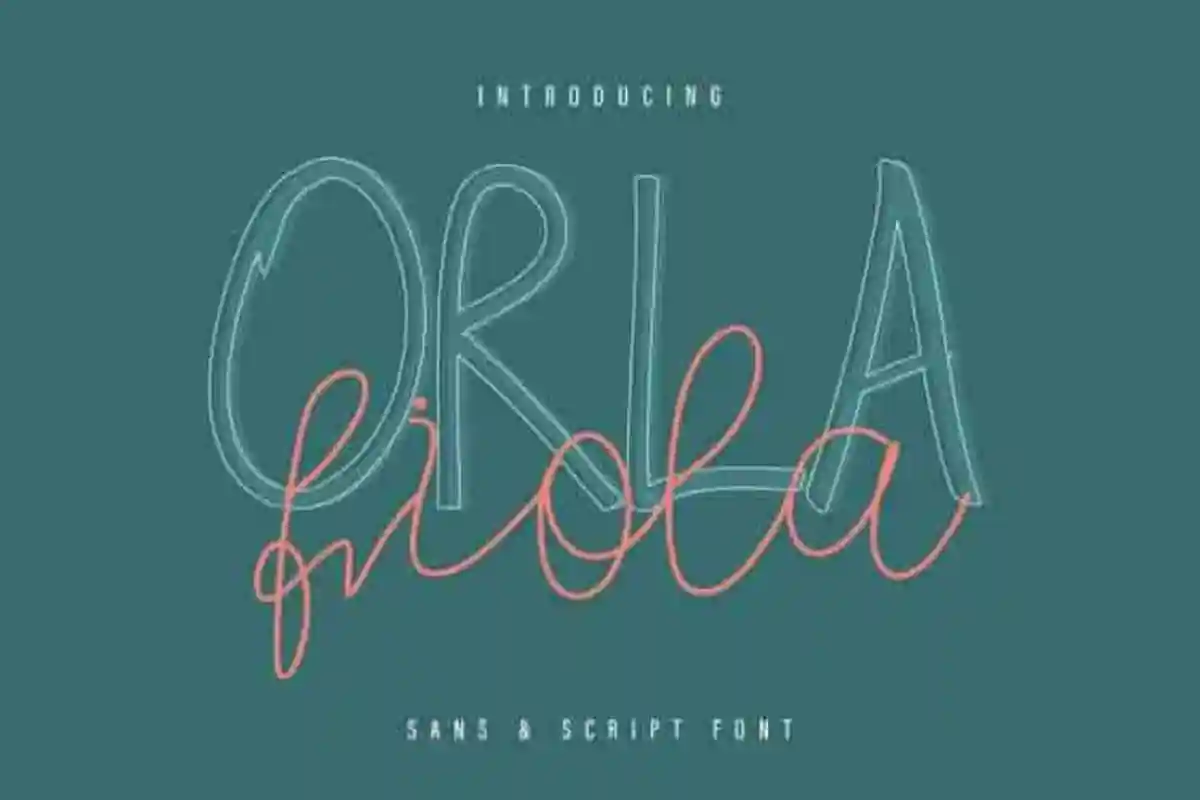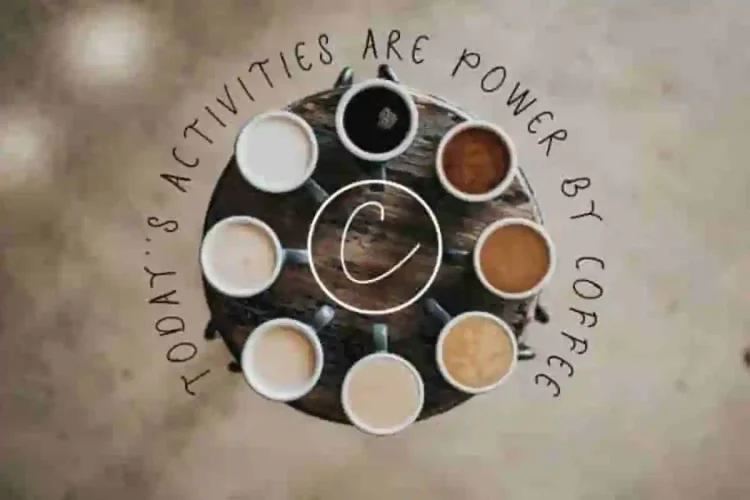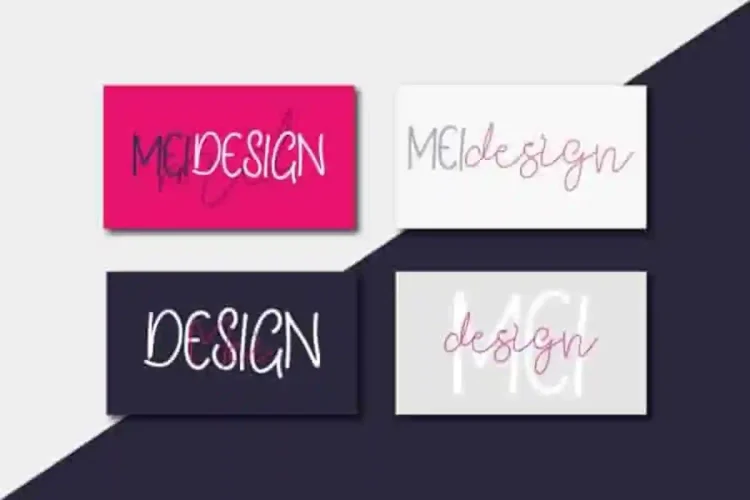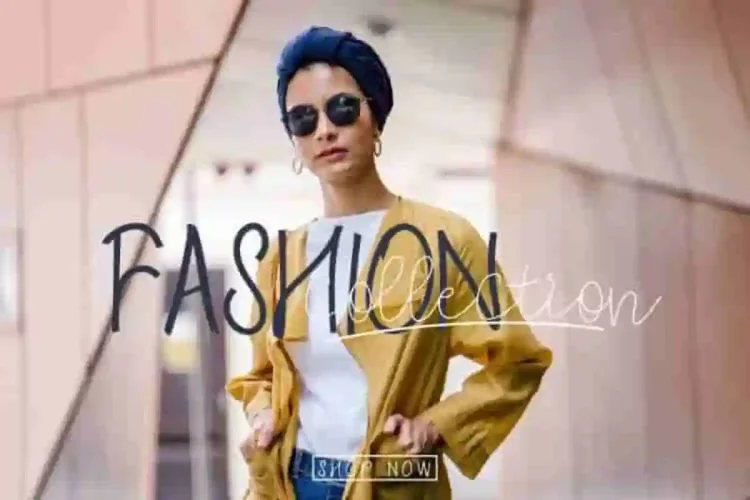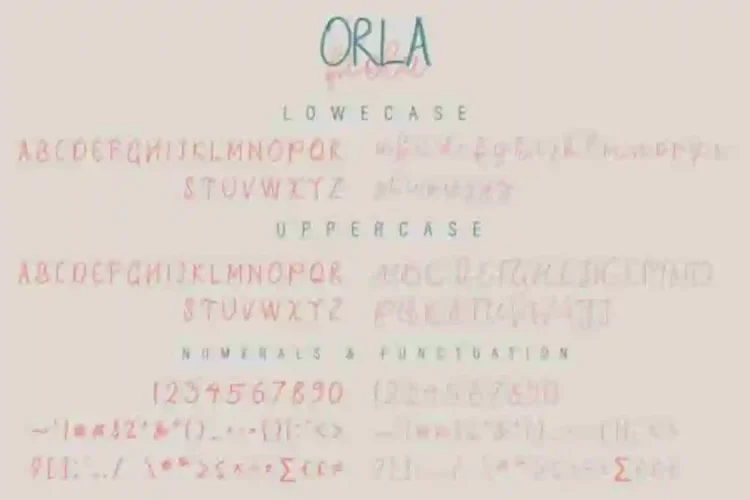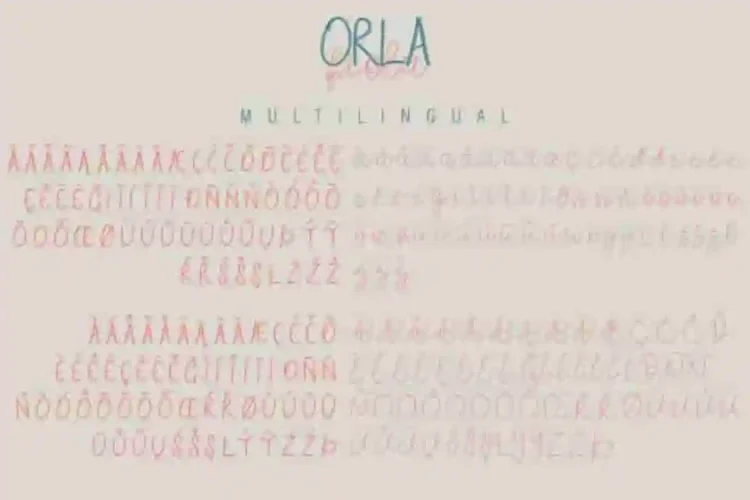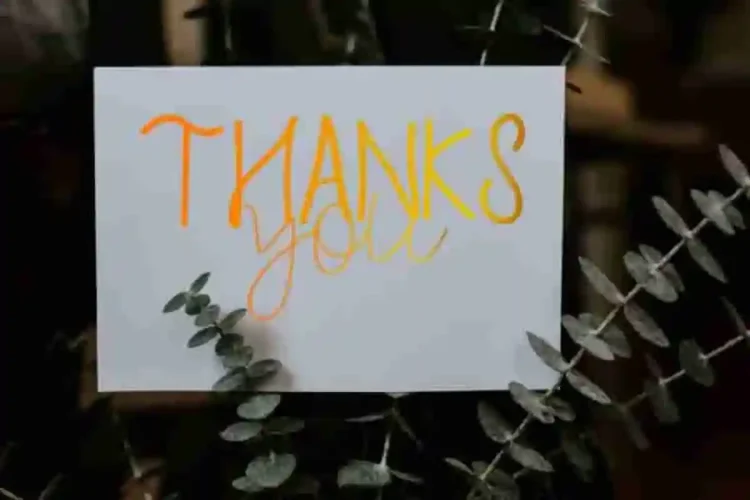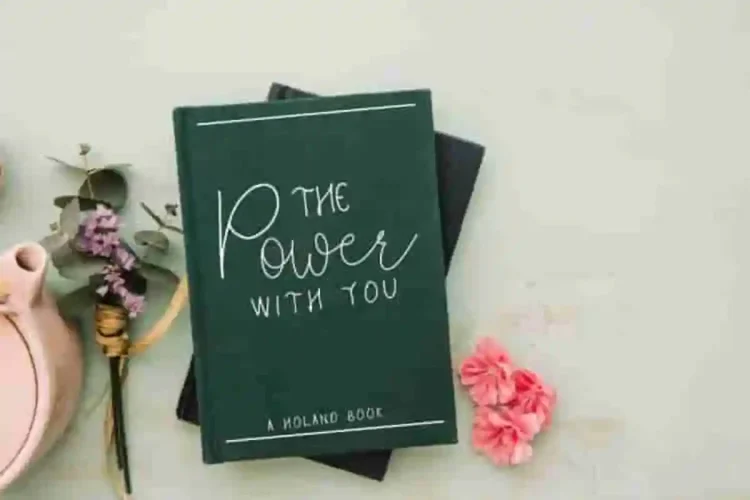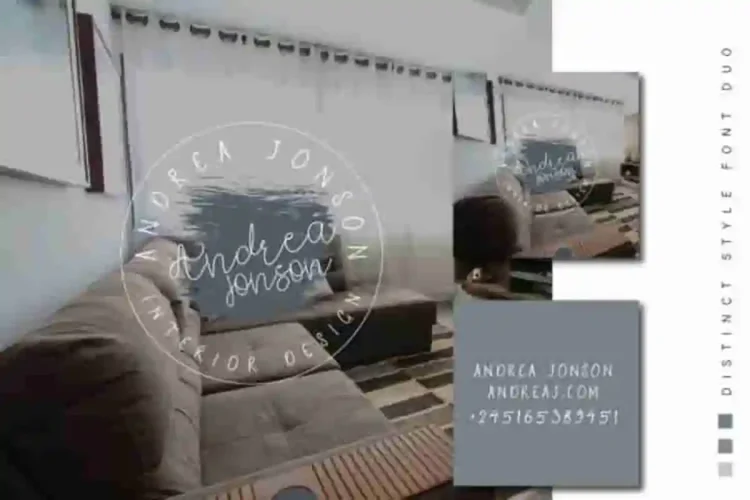
Orla Fiola Script Font Duos
Introducing! Orla Fiola Font Duo. This is our newest font duo handcrafted in our Studio. Made by two of our lovely artists : Yasri and Suci.
Orla Fiola Font Duo is an exclusive duo typeface with two unique styles. The typeface has a stunning characters set, perfectly kerned and spaced. The style characters of this font is elegant, stylish, sophisticated and handwriting style. It has two script and font duos styles.
Orla Fiola Font Duo is awesome for any projects (with extended license) including : branding, logotype, stationery, business card, signage, flyer, brochure etc. Many all industries will be match for this typefaces: wedding, events, real estate, architect, law firm, florist, gardening, makeup artist, travel, hotel, musician, cafe, packaging etc.